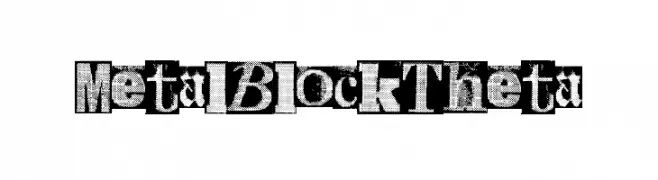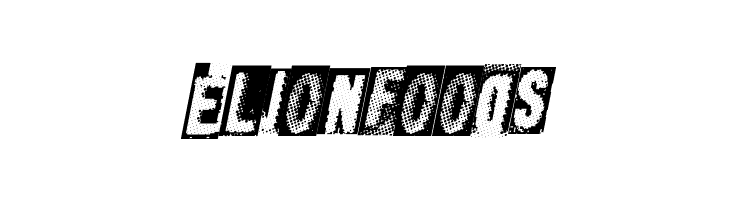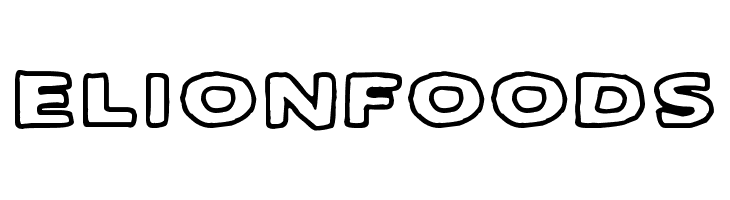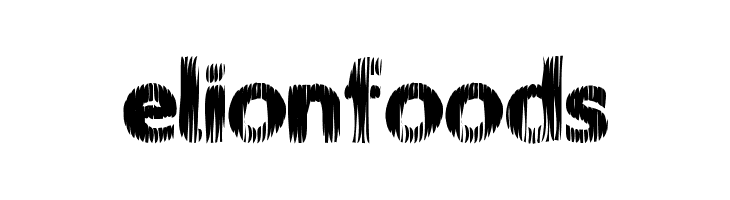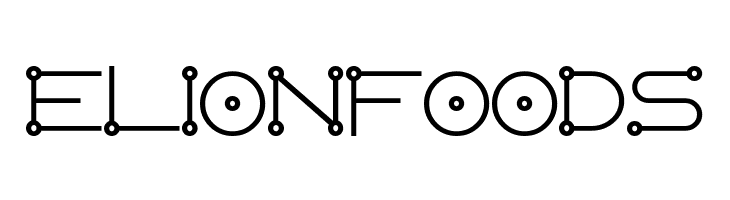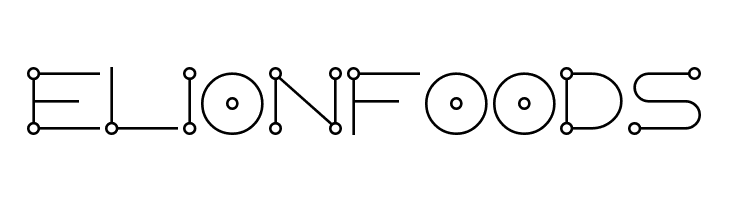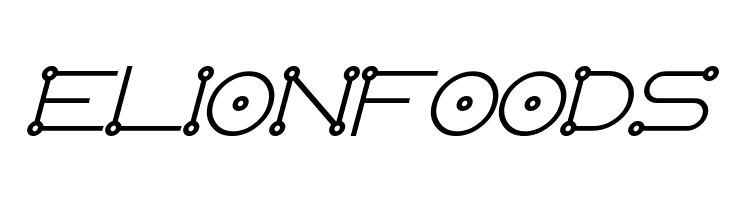
A bold, textured font with a comic book and vintage print style.
A bold, industrial font with a gritty, metallic texture.
A bold, industrial font with a three-dimensional, metallic appearance.
A bold, playful font with thick outlines and rounded edges, perfect for fun and informal projects.
A bold, textured font with a fiery, dynamic appearance.
A bold, industrial-style font with a rugged, mechanical appearance.
A futuristic, geometric font with circular nodes and connecting lines.
A futuristic, geometric font with circular nodes and straight lines, ideal for tech-themed designs.
A futuristic, bold, and italic font with a mechanical, circuit-like design.